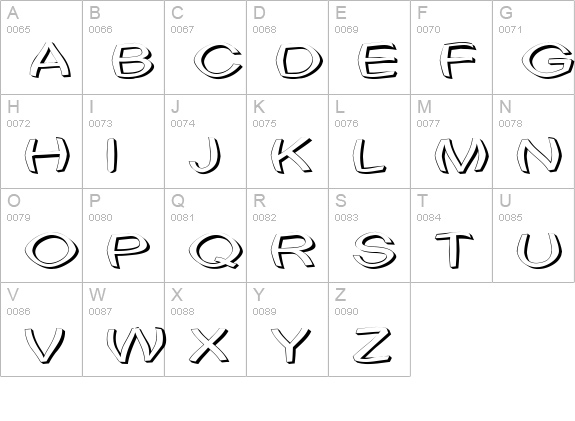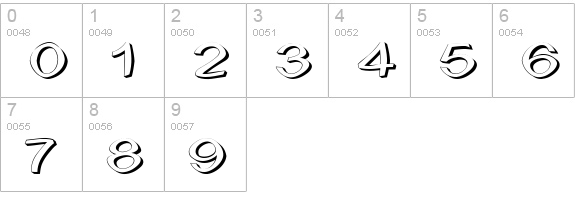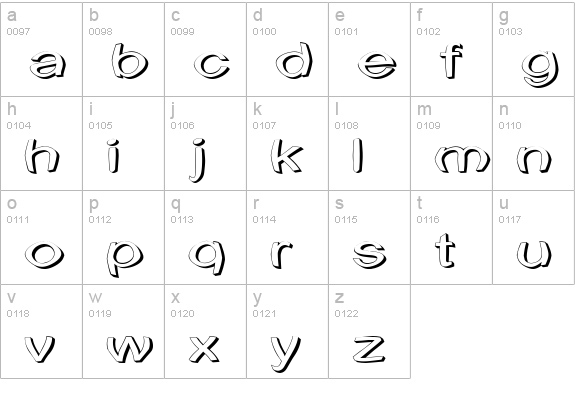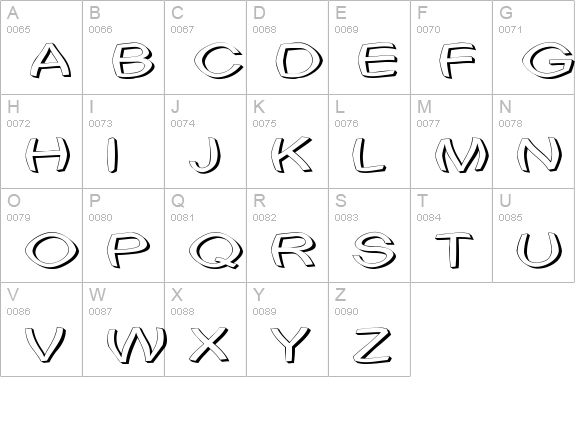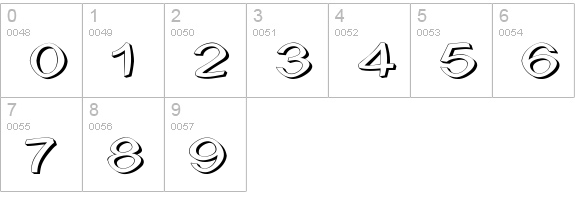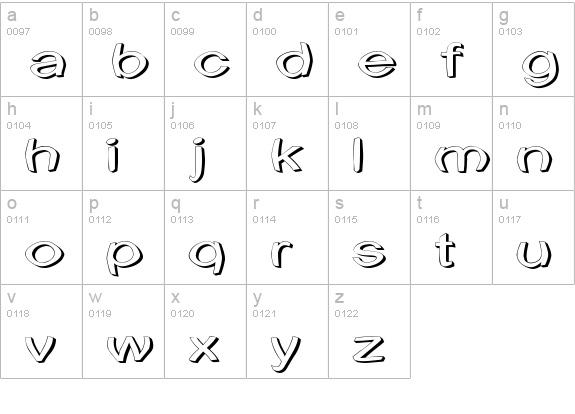
Uni Tortred font is a stunningly unique typeface that combines elegance and edginess in perfect harmony. With its intricate letterforms and captivating details, this font is sure to make a bold statement in any design project. The beauty of Uni Tortred lies in its versatility. Whether used for headlines, logos, or body text, this font effortlessly captures attention and adds a touch of sophistication to any composition. Its distinctive curves and sharp angles give it a modern and futuristic feel, making it ideal for projects that aim to stand out from the crowd. What sets Uni Tortred apart is not only its exceptional design, but also its accessibility. This font is freely available to download at FontsMarket.com, making it a valuable asset for both professional designers and casual enthusiasts. The ability to access such a high-quality font for free provides endless possibilities for creativity and allows anyone to elevate their designs to new heights. With Uni Tortred, you can unleash your imagination and create visually striking designs that leave a lasting impression. Whether you're designing a logo for a cutting-edge tech company or crafting a magazine spread that demands attention, this font will be your secret weapon. Don't miss out on the opportunity to enhance your design arsenal with Uni Tortred. Download it for free at FontsMarket.com and let your creativity soar.